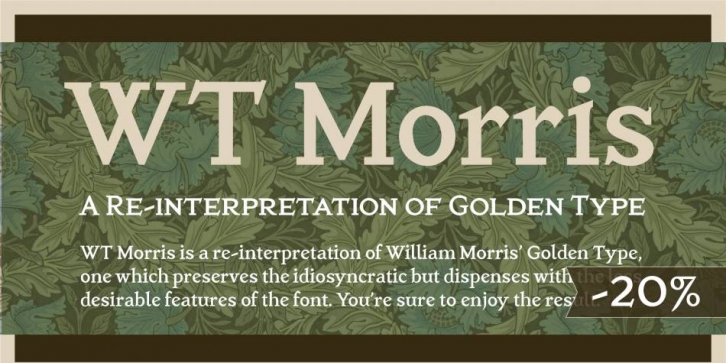
I’ve been doing some deep diving into the strange font ventures of William Morris. So naturally, I decided to create my own interpretation of his pretty darned ugly Roman face. The font is actually “ugly†in many good ways. But, look it up. You’ll see the CAPS. My goals was to amplify the good ugly, and I landed on what is, to my eyes, something very pretty.
WT Morris Roman is based off his Golden produced for fine bookmaking at the Kelmscott Press. That face was based on some early Jenson cuts, but with thicker and more uniform strokes. However, some of the strokes kept by Morris make it mostly unusable in a digital age (which makes sense), and some of the widths of characters make it hard to use in any age.
This font is my attempt to reconcile all these things; I love me a good, beautiful, ugly typeface.